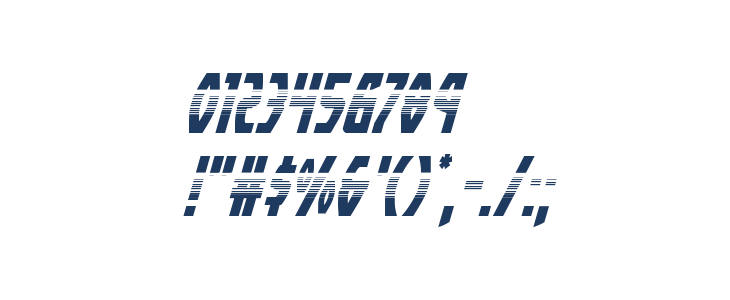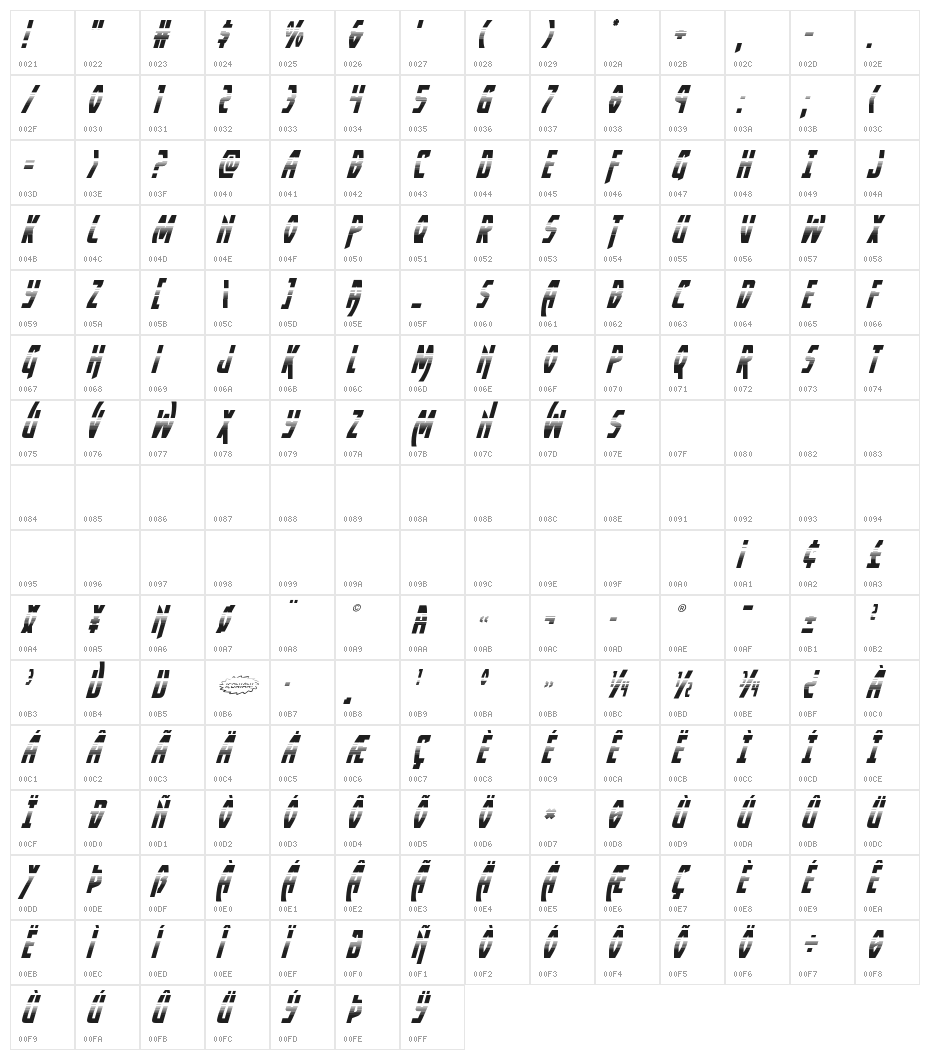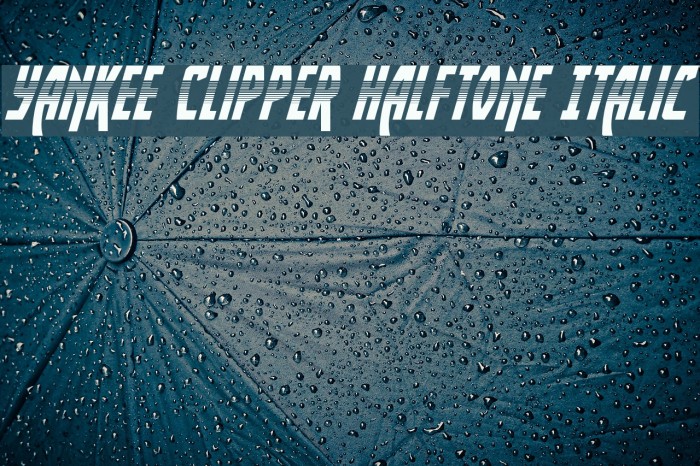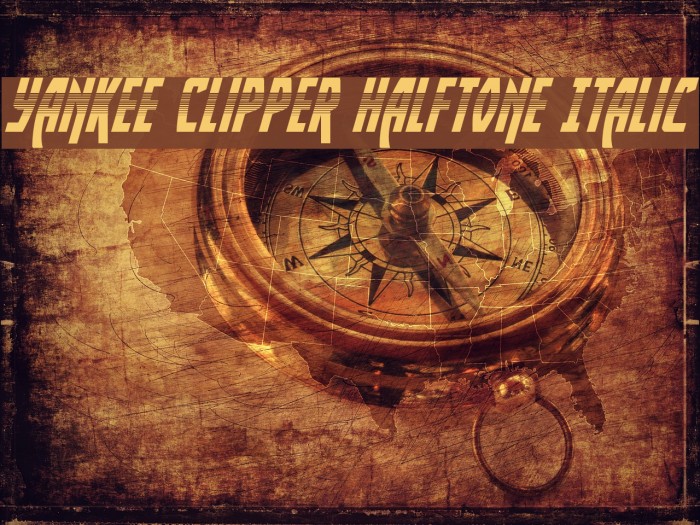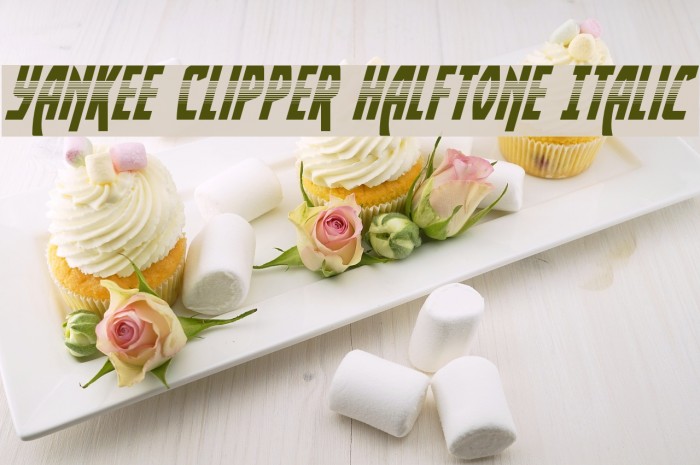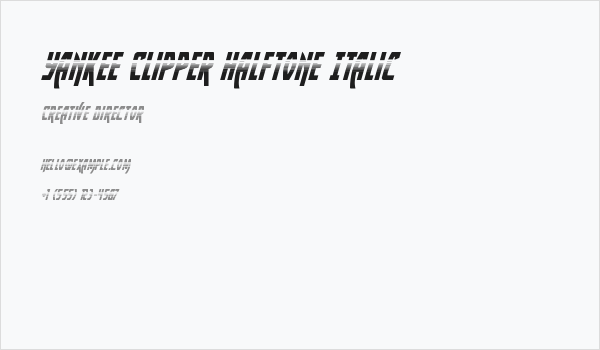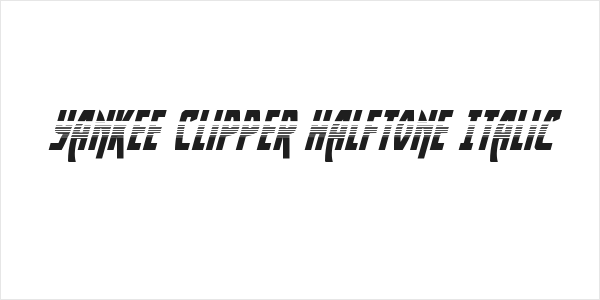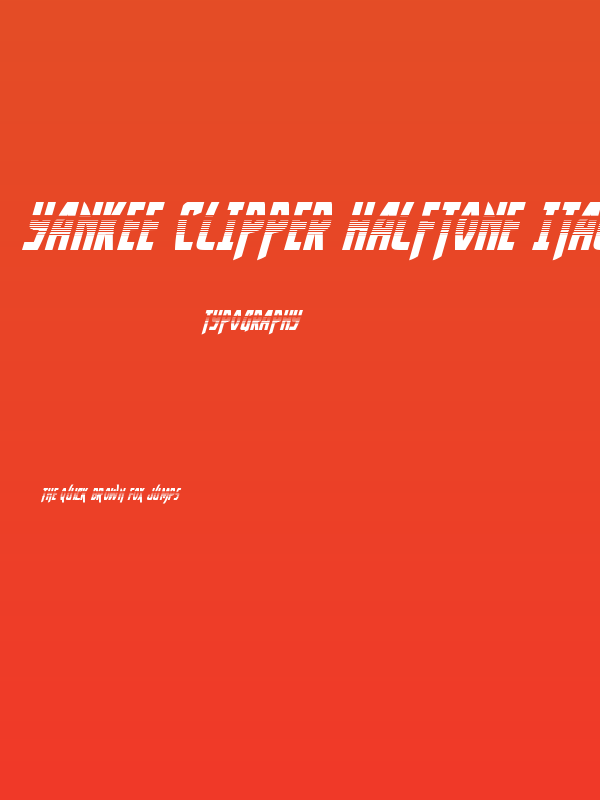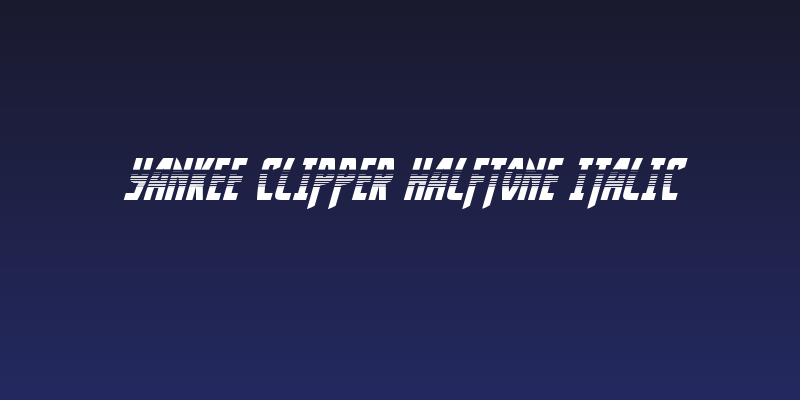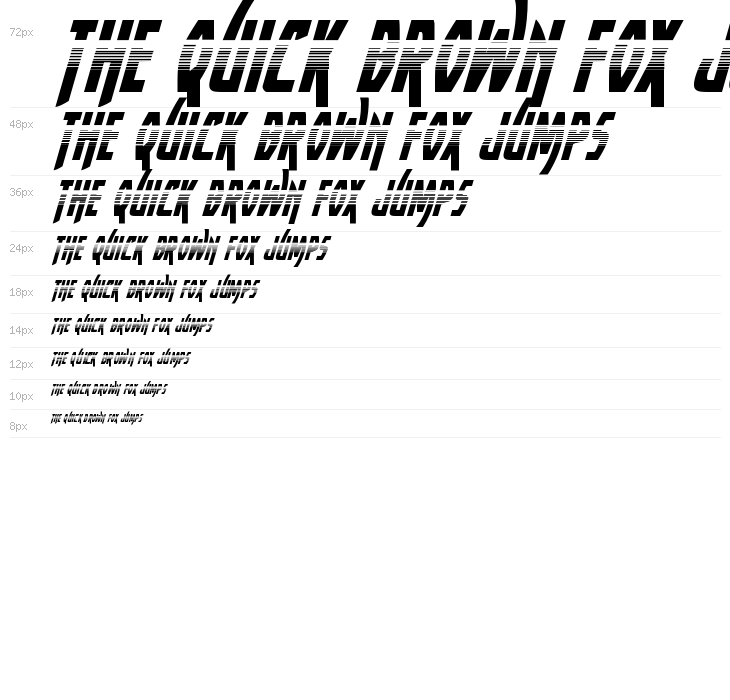
Yankee Clipper Halftone Italic Font
Yankee Clipper Halftone Italic Description
This font features a bold, italicized style with a unique halftone effect that creates a sense of movement and dynamism. The characters are designed with a slanted orientation, enhancing the italic appearance. The halftone pattern consists of horizontal lines that vary in thickness, giving the font a textured, layered look. This design choice adds depth and visual interest, making it stand out. The font is highly stylized, with sharp angles and a futuristic feel, suitable for projects that require a modern and edgy aesthetic.
| Proposed Projects | Ideal for posters, album covers, sports branding, and any design requiring a bold, modern statement. |